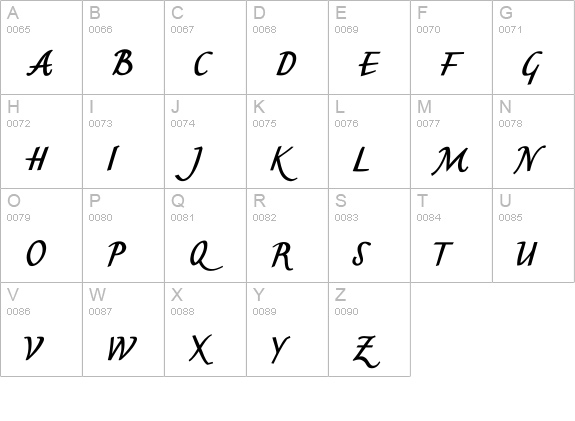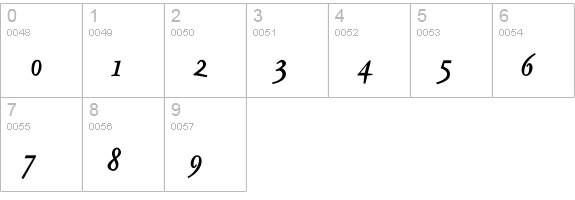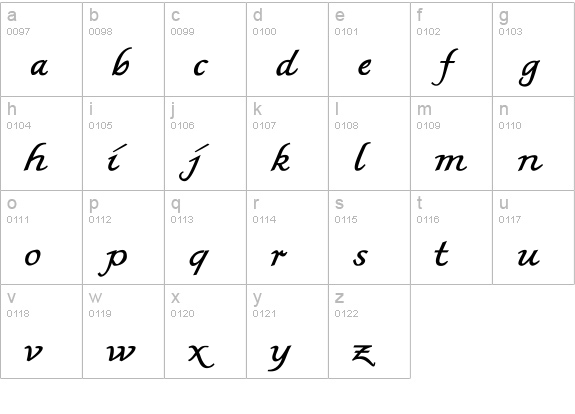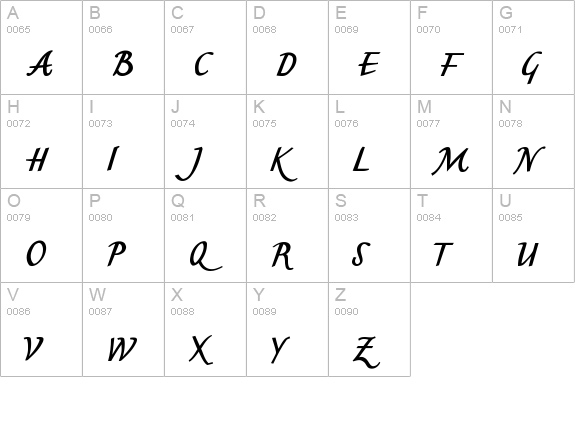
AIBritishWriting Font Details
Introducing AIBritishWriting font - a charming and elegant typeface that exudes sophistication and classic British style. This font is perfect for adding a touch of refinement to your projects, whether you're working on invitations, branding, or editorial design. With its timeless appeal and stylish letterforms, AIBritishWriting font is sure to make a lasting impression. The sleek lines and graceful curves of this font give it a distinctive and upscale look that is both versatile and eye-catching. Best of all, AIBritishWriting font is available for free download at FontsMarket.com, making it easily accessible for all your creative endeavors. Don't miss out on the opportunity to add this exquisite font to your collection and elevate your designs with a touch of British flair.